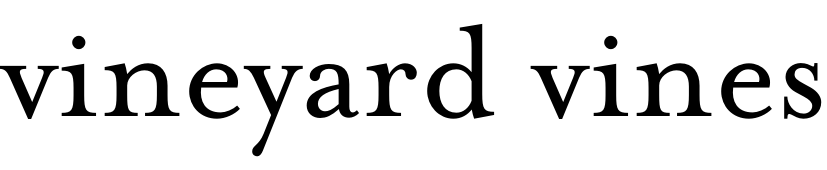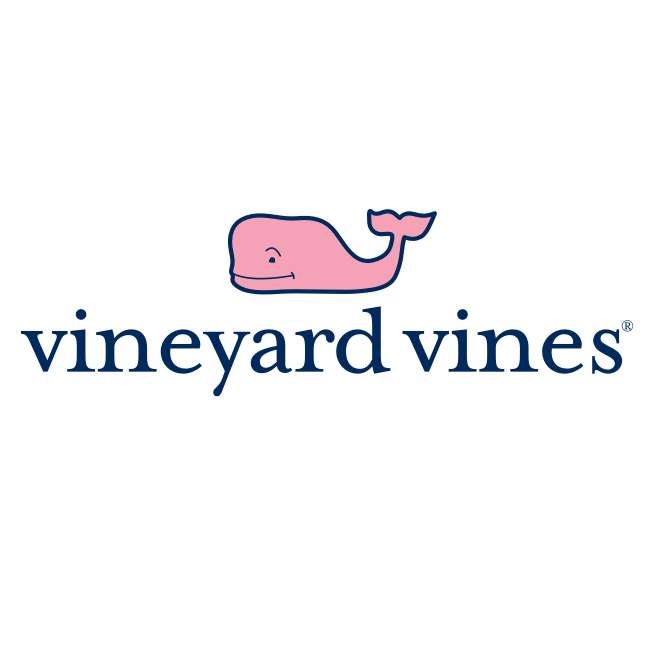
Vineyard Vines Font
ApparelVineyard Vines is a luxury clothing and accessory brand founded in 1998 by brothers Shep and Ian Murray. The brand is known for its high-quality, preppy-style clothing and accessories, including polo shirts, dresses, swimwear, and ties.
The logo of the Vineyard Vines clothing brand uses a transitional serif called Mrs Eaves Roman, created by Zuzana Licko and published by type foundry, Emigre, in 1996.